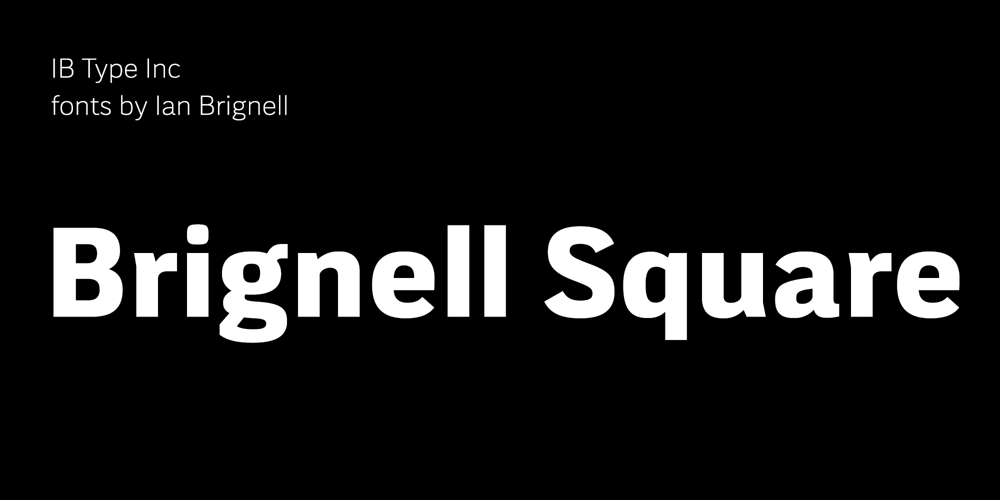
Brignell Square
Brignell Square font
Brignell Square Font Family was designed by Ian Brignell and published by IB TYPE Inc.. Brignell Square contains 10 styles and family package options. BRIGNELL SQUARE is a ten font family designed by Ian Brignell.Modern and crisp, this strong-shouldered sans serif offers tonal neutrality.Like Helvetica, Brignell Square is a classic “do anything” font. Spatial balance defines these letter shapes. Creatively, this typeface was born in 1990 out of Ian’s frustration with ubiquitous, barely readable highway signage. Use everywhere. Extended Latin set.